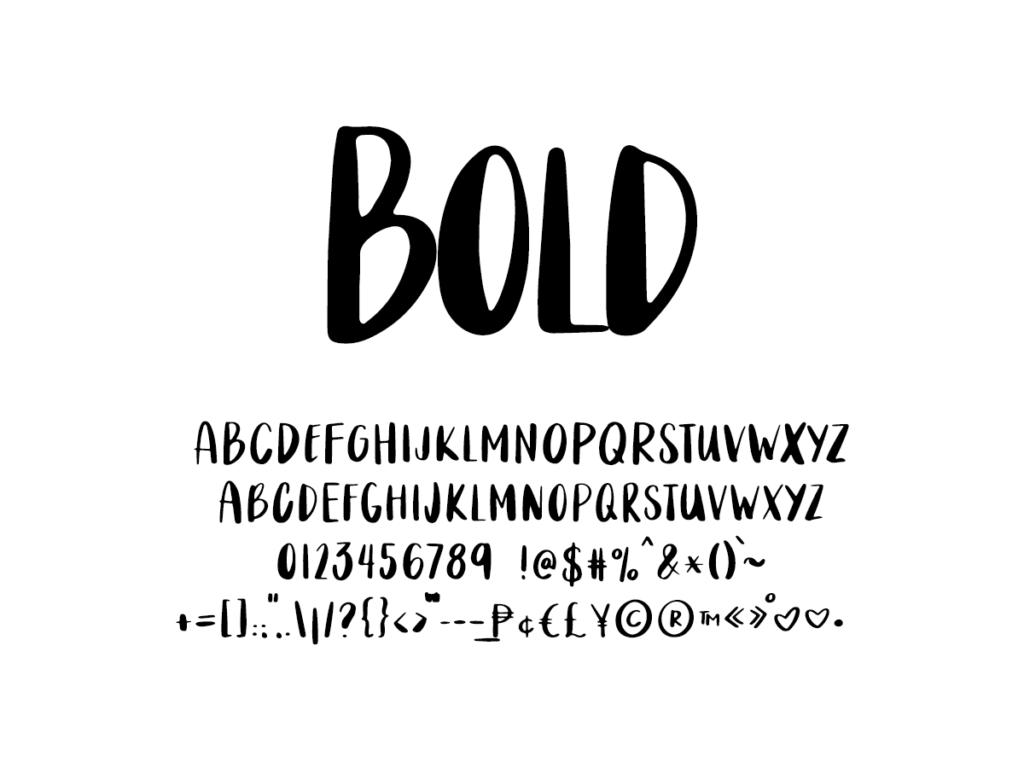
Mix Bold Font
About the Mix Bold Font
Start a blog, draw posters for your band, or just captivate a crowd with your skill at stylish writing and bold typefaces! MIX BOLD is a basic all-uppercase digitally handwritten font.